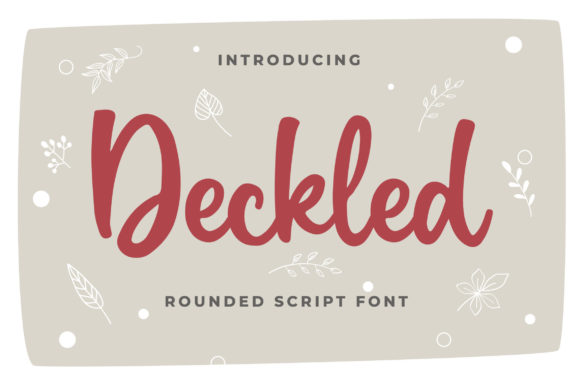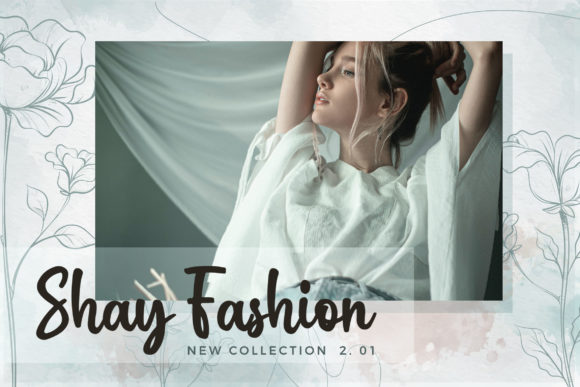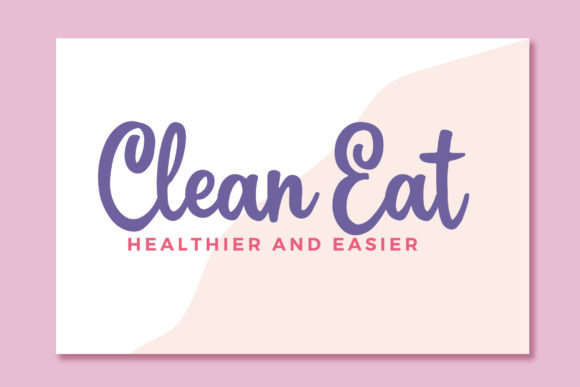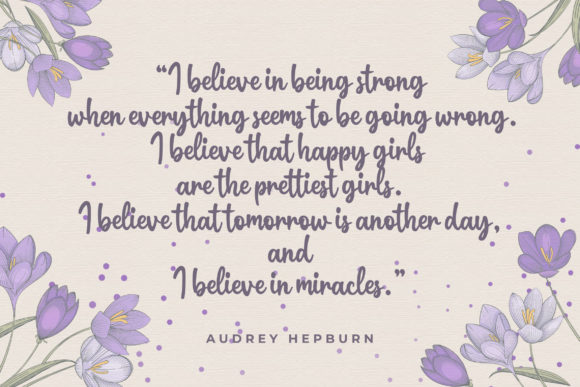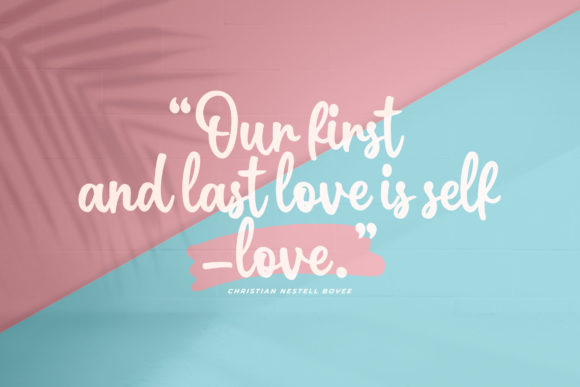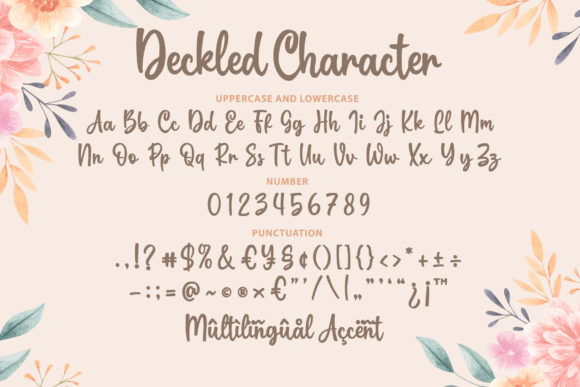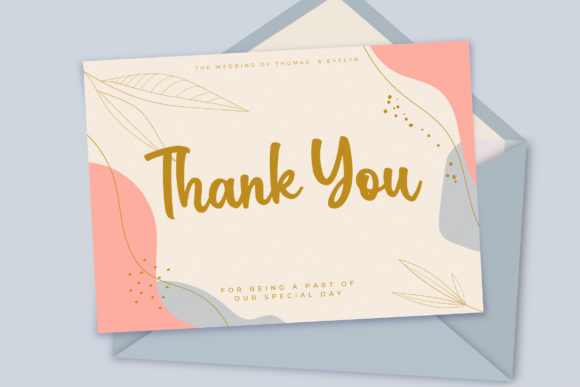
Deckled Font
About Deckled Font
Deckled is a beautiful brushed handwritten font. Flowing and smooth, this font will be a major hit for each of the designs that you wish to develop.